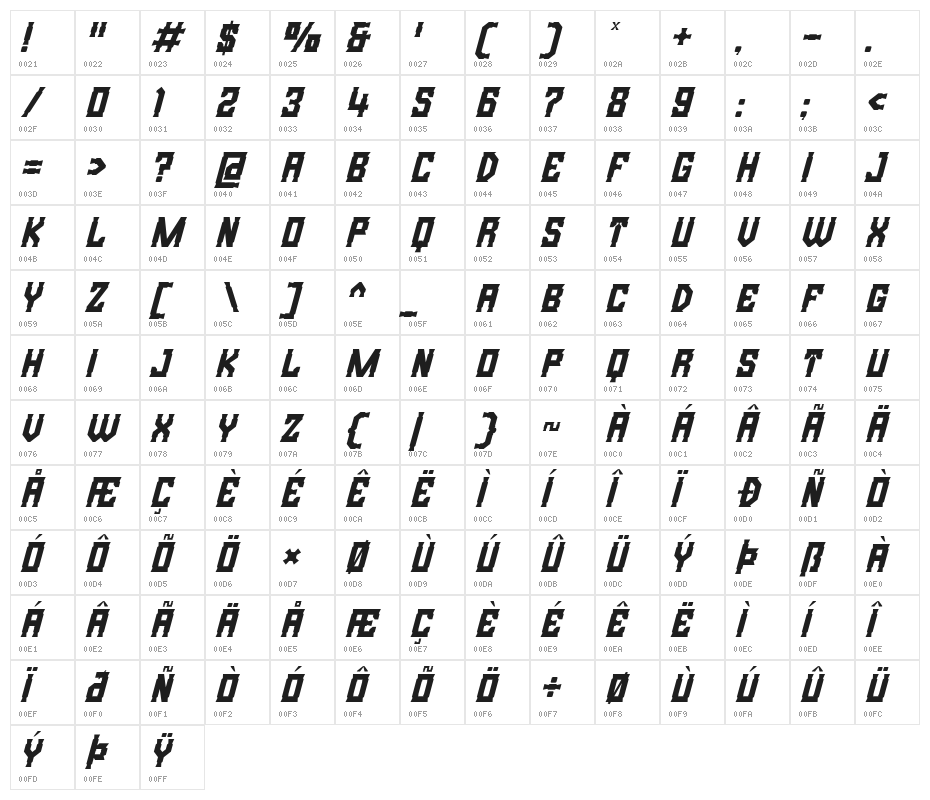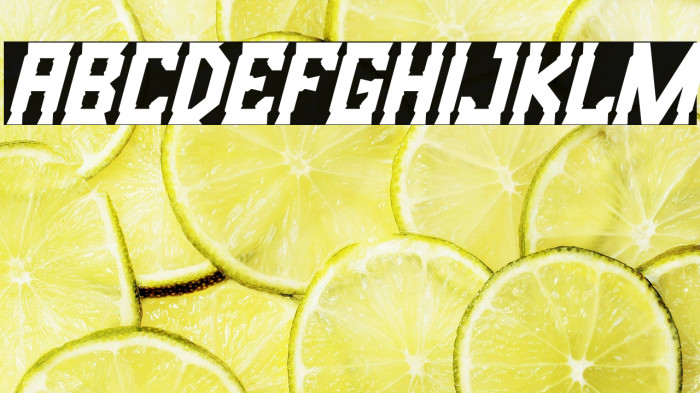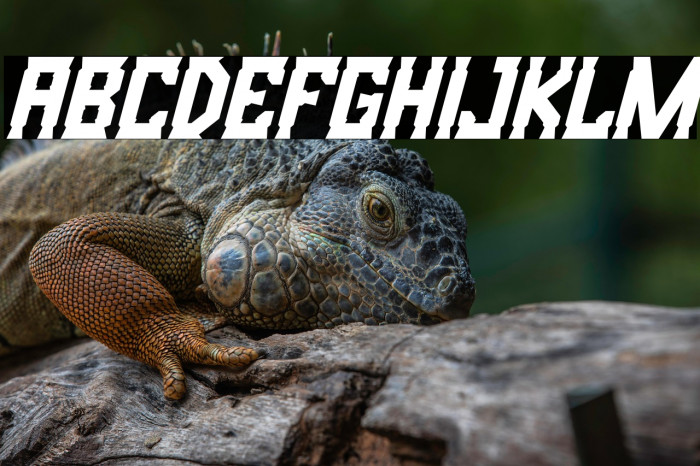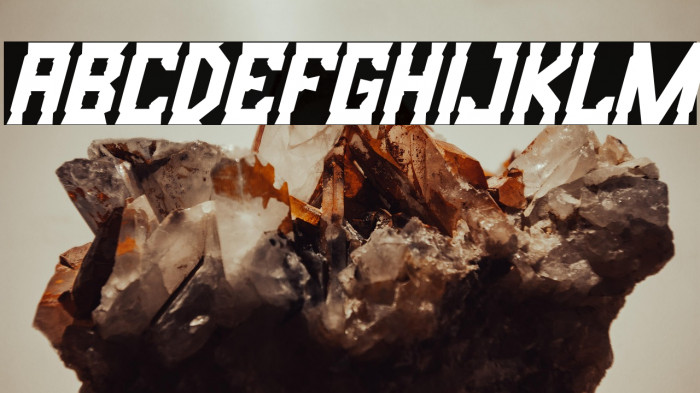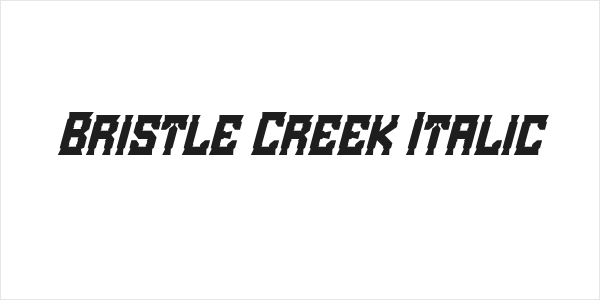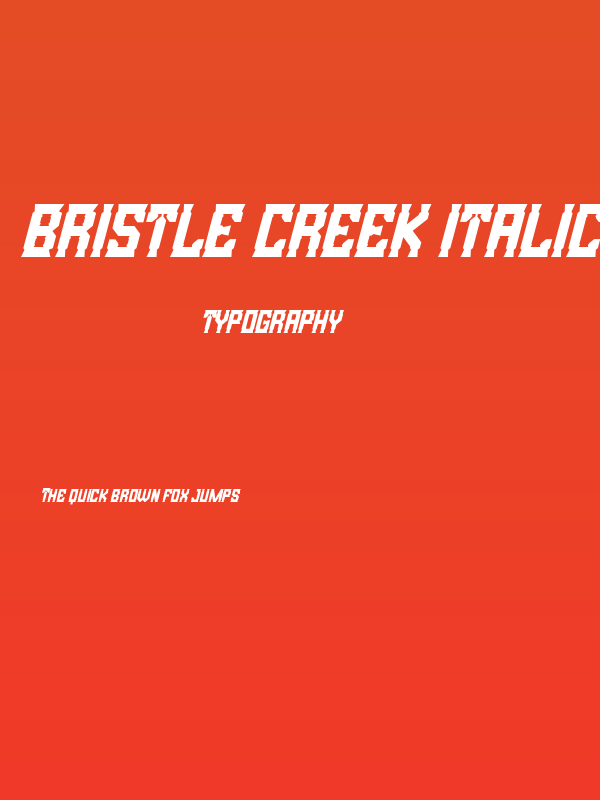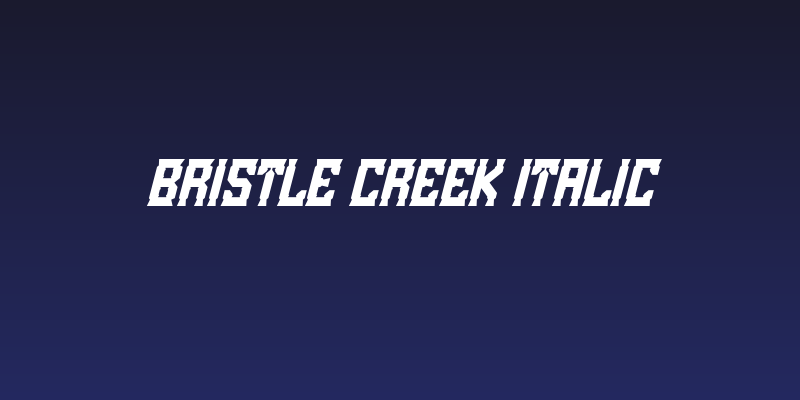
Bristle Creek Italic Font
Bristle Creek Italic Description
This font features a bold and dynamic style with sharp, angular edges and a distinct italic slant. The characters are tightly spaced, creating a compact and cohesive appearance. The design is reminiscent of a modern, futuristic aesthetic, with a strong emphasis on geometric shapes. The uppercase and lowercase letters maintain a consistent style, while the numerals and special characters integrate seamlessly with the overall design. The font's high contrast between thick and thin strokes adds to its striking visual impact, making it ideal for attention-grabbing headlines and titles.
| Proposed Projects | Ideal for use in sci-fi themed projects, video game titles, posters, and branding that requires a modern and edgy look. |